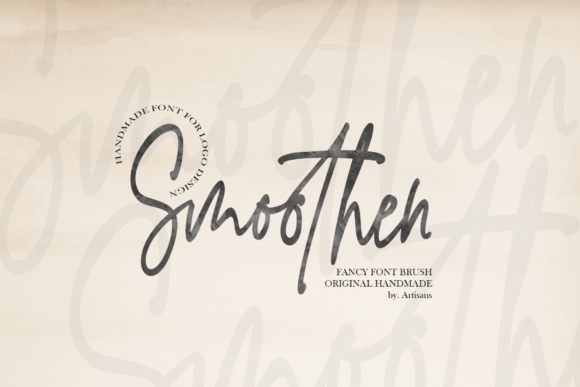
About Smoothen Font
Smoothen is a lovely and unique handwritten font. It is the best choice for creating eye catching logos, branding and quotes. Every letter has a unique and beautiful touch, which will make your design come alive!